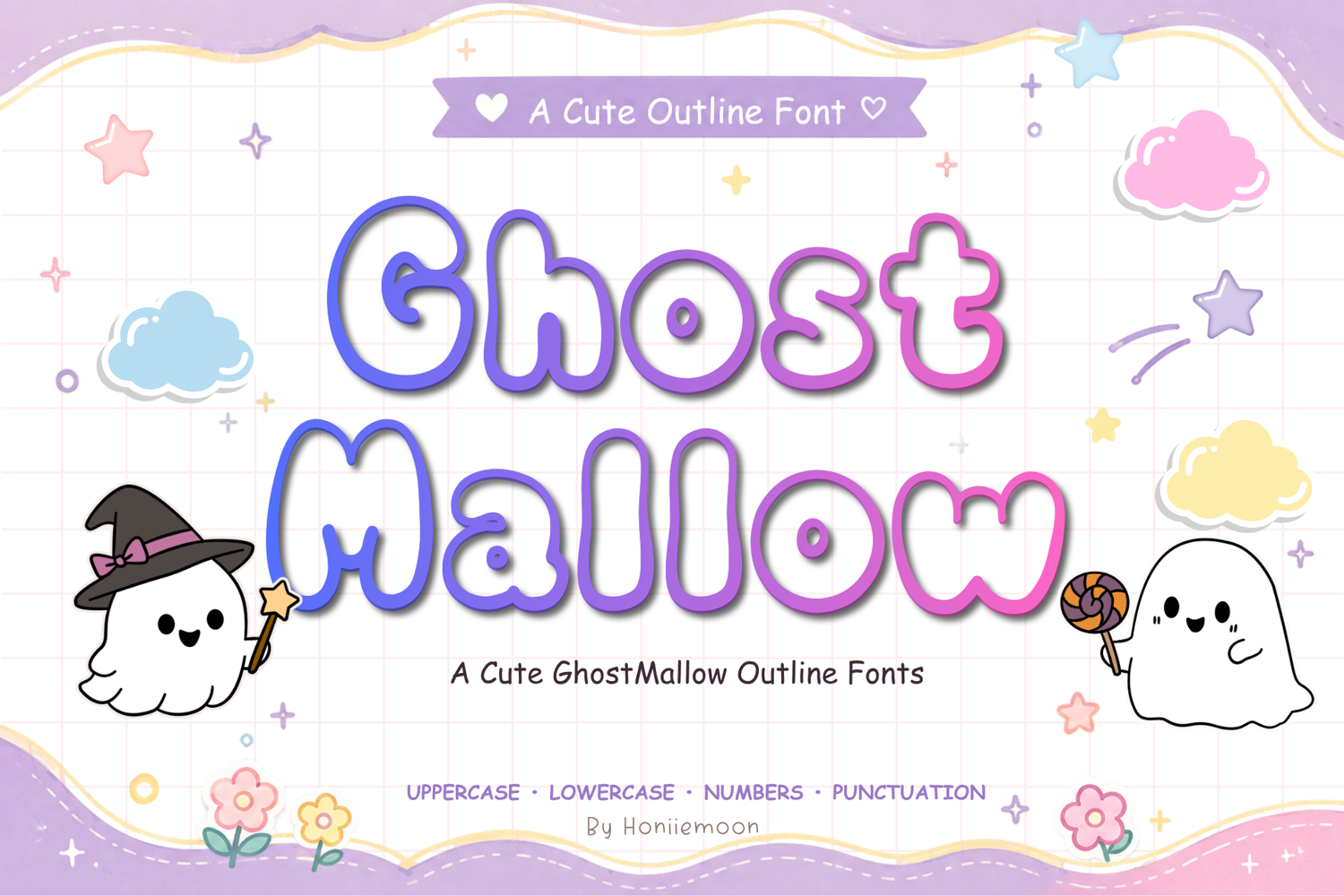
Ghost Mallow is a cute and playful Halloween outline font featuring soft, rounded, bubbly letterforms with a charming ghost-inspired personality. Designed to feel spooky-cute rather than scary, this adorable font is perfect for Halloween crafts, seasonal designs, and fun everyday projects.
Cute outline bubble style
• Rounded and playful letterforms